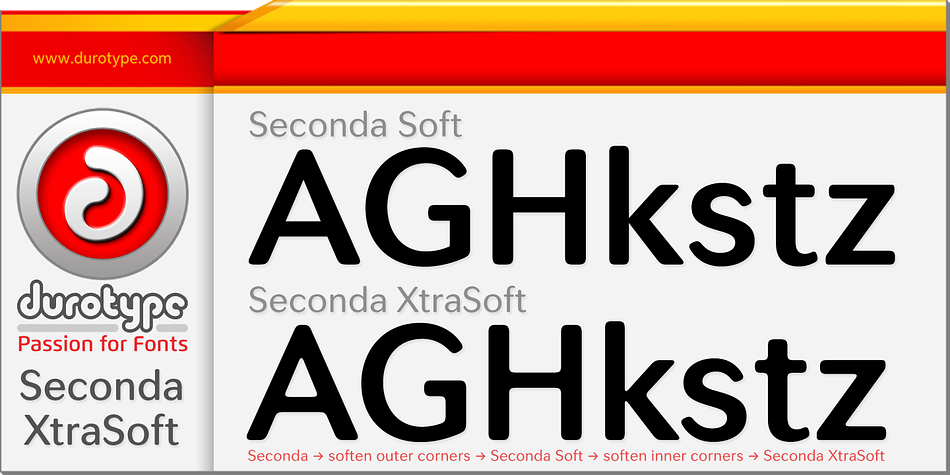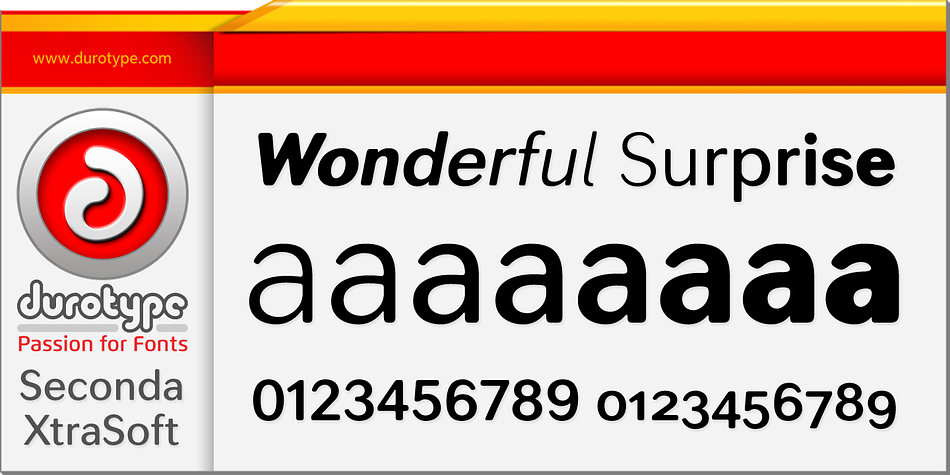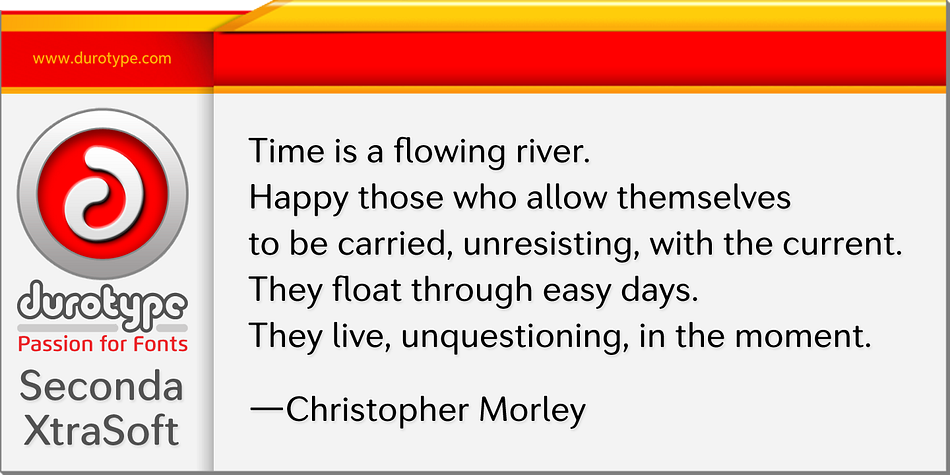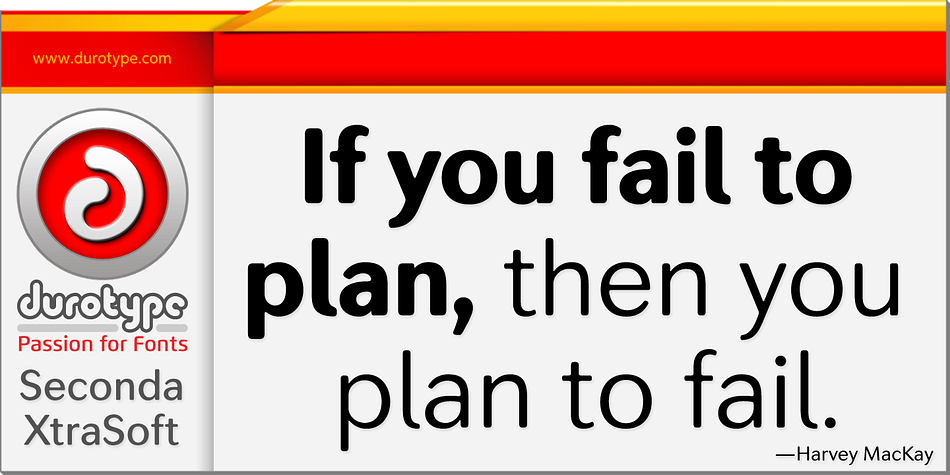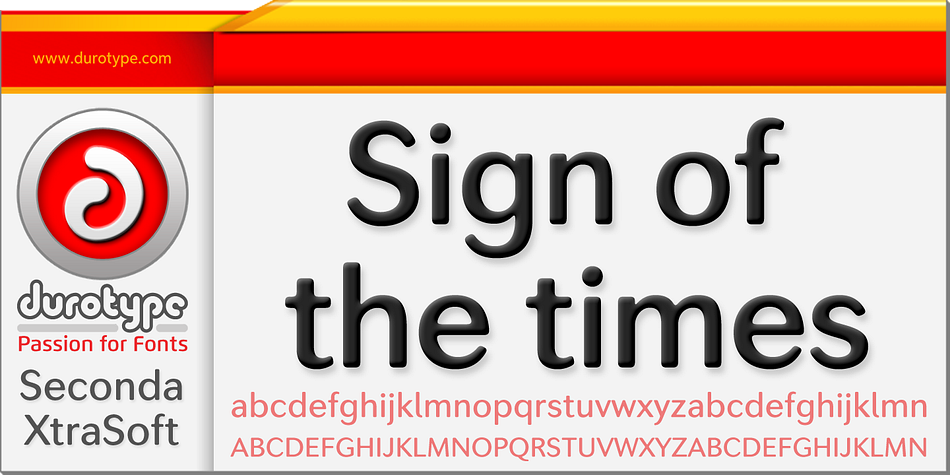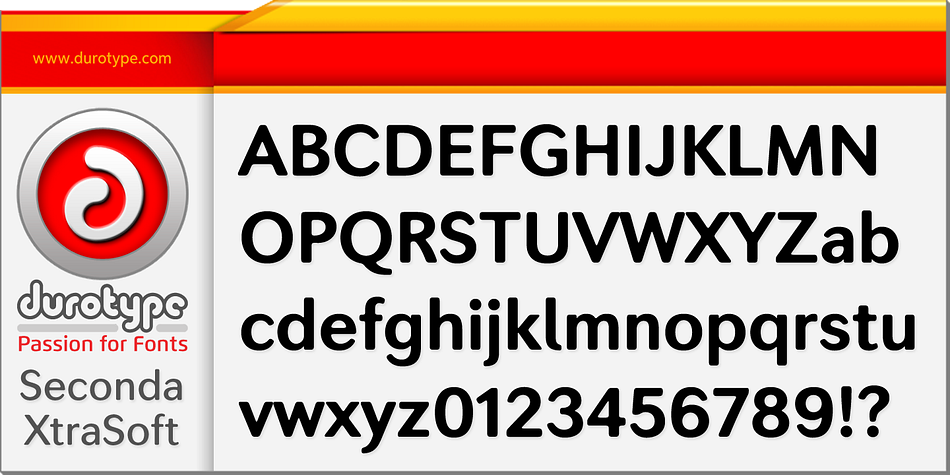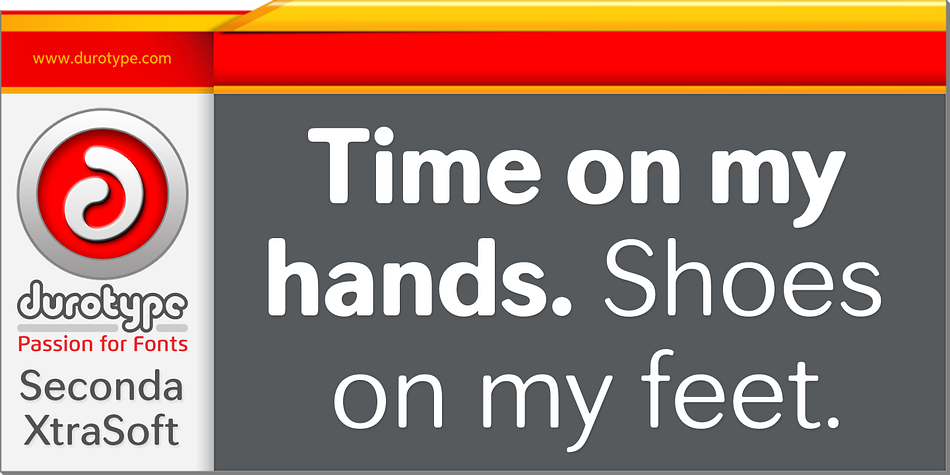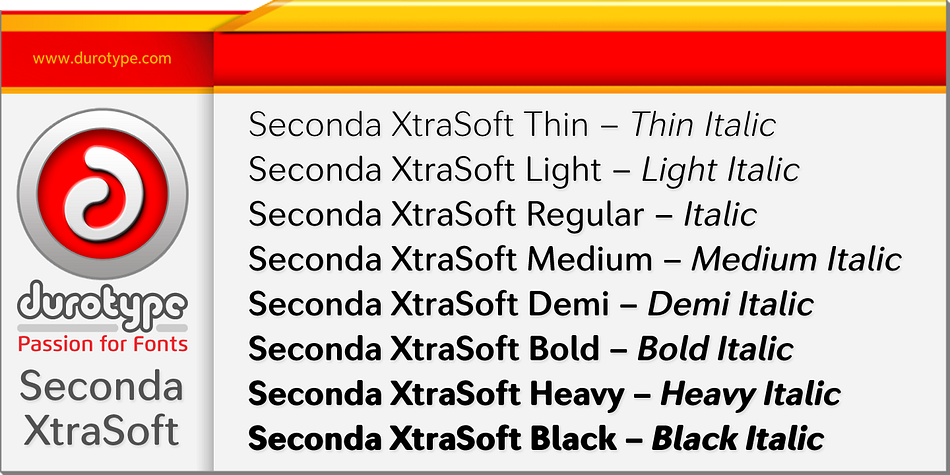
Seconda XtraSoft is a sans serif font family. This typeface has sixteen styles and was published by Durotype.
Seconda XtraSoft is the extra soft companion of Seconda and Seconda Soft. Friendlier, easier on the eye, more informal, more fashionable — but still the refined and reliable Seconda. Seconda XtraSoft’s extra softness comes from the moderate rounding of both the edges and the inner corners of its characters.
Seconda XtraSoft has sixteen styles, extensive language support, eight different kinds of figures, sophisticated OpenType features — so it’s ready for advanced typographic projects.
For text and display use. When using Seconda XtraSoft in small text sizes, it will be a reliable and legible text face. When using it in big display sizes, it will show its interesting details.